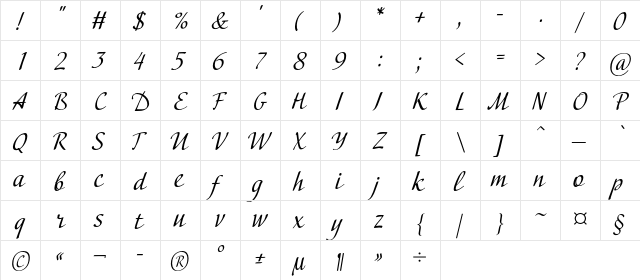
AdventureC Regular
Design Context for AdventureC Typeface
AdventureC is a composed and adaptable typeface that performs quietly and consistently across a wide range of design contexts.